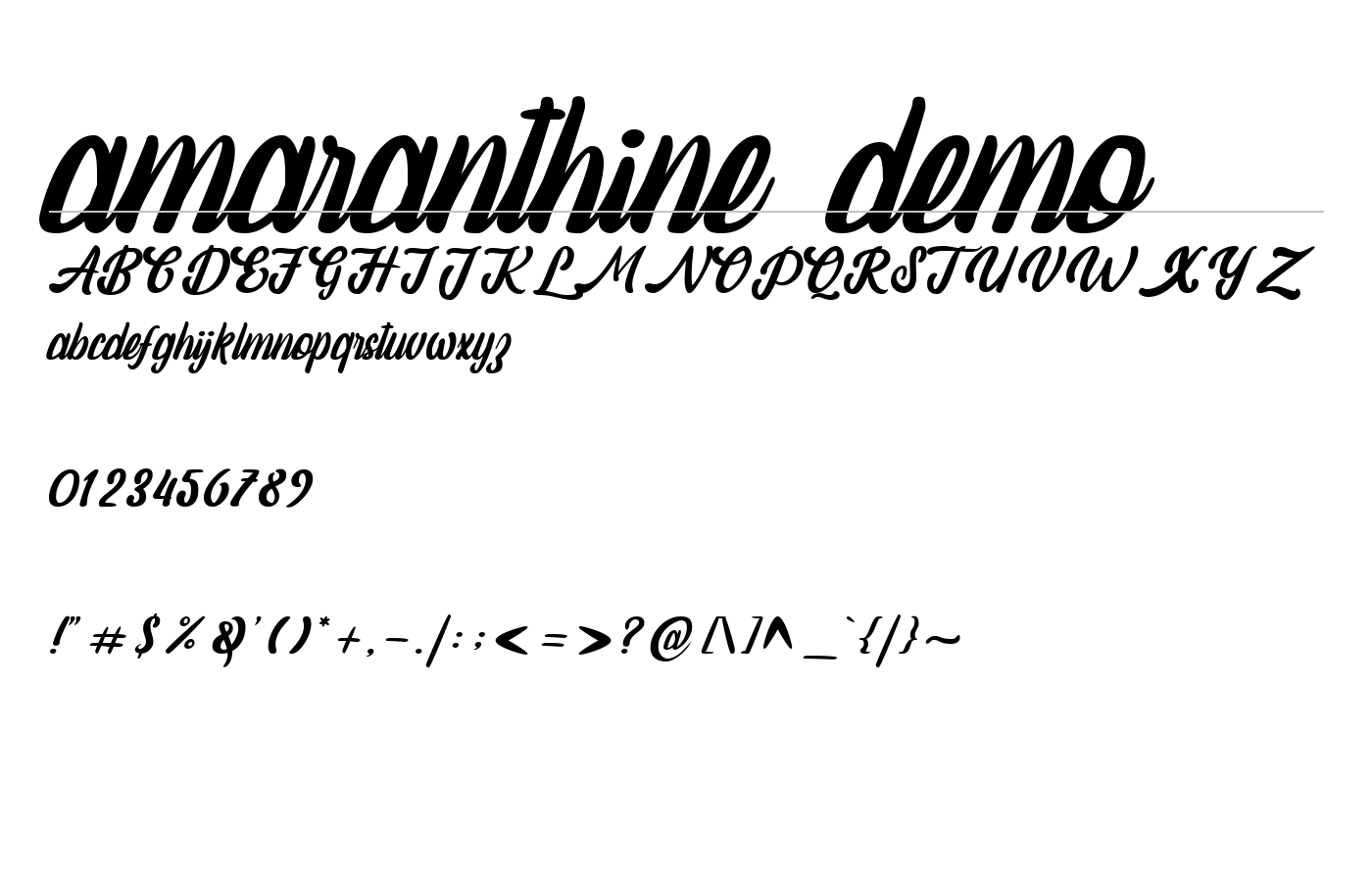
Amaranthine Demo is an elegant script font with a smooth, flowing design that combines bold, high-contrast stroke styles with refined, graceful curves. Its connected letterforms and classic calligraphic flair make it perfect for sophisticated branding, invitations, and stylish headlines where a touch of personality and charm is desired. This font's distinctive style works well in fashion, beauty, and luxury contexts, adding an expressive and refined feel to any creative project.
amaranthine demo Font
About amaranthine demo Font
| Designer | junart |